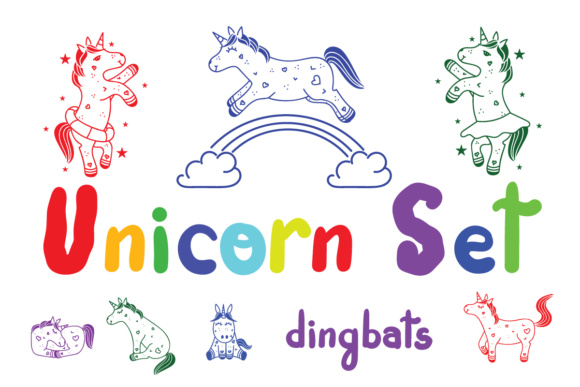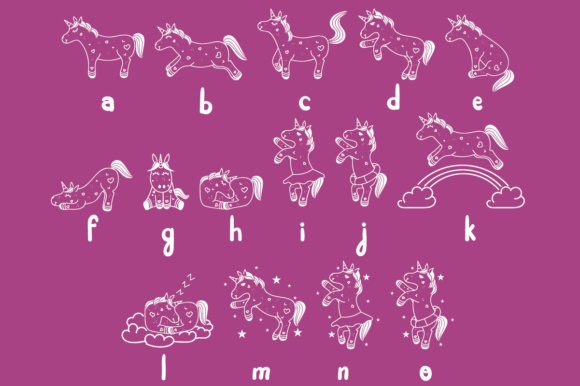
About Unicorn Dingbat Font
This cute and charming dingbat font features a collection of 20 unique unicorn drawings, making it a perfect addition to your kids-themed or young adult designs. With its whimsical and magical illustrations, this font adds a touch of enchantment to any project.
The unicorn has long been associated with fantasy, imagination, and wonder. Its mystical and graceful nature makes it a popular symbol, especially among children and those young at heart. With this dingbat font, you can easily incorporate these beloved creatures into your designs, whether you’re working on invitations, greeting cards, posters, or any other creative endeavor.
Each of the 20 unicorn drawings in the font is carefully crafted to capture the essence of these magical creatures. From cute and cuddly unicorns to elegant and majestic ones, the range of illustrations allows you to choose the perfect unicorn for your specific project. The versatility of the font enables you to mix and match the unicorns, creating delightful compositions that spark joy and imagination.
The cute little dingbat font is designed to be easily accessible. Simply type the corresponding keys on your keyboard, and the unicorn drawings will appear, ready to be used in your designs. This user-friendly approach saves you time and effort, allowing you to focus on the creative process and bring your vision to life.
Whether you’re designing for children’s books, party decorations, apparel, or any other project aimed at capturing the hearts of young audiences, this cute little dingbat font with its adorable unicorn drawings is sure to captivate and bring a touch of magic to your creations.
So unleash your creativity, sprinkle some enchantment, and let these delightful unicorns from the dingbat font add a whimsical and joyful element to your designs. Embrace the charm and wonder of these mythical creatures, and watch your projects come to life with a dash of unicorn magic.